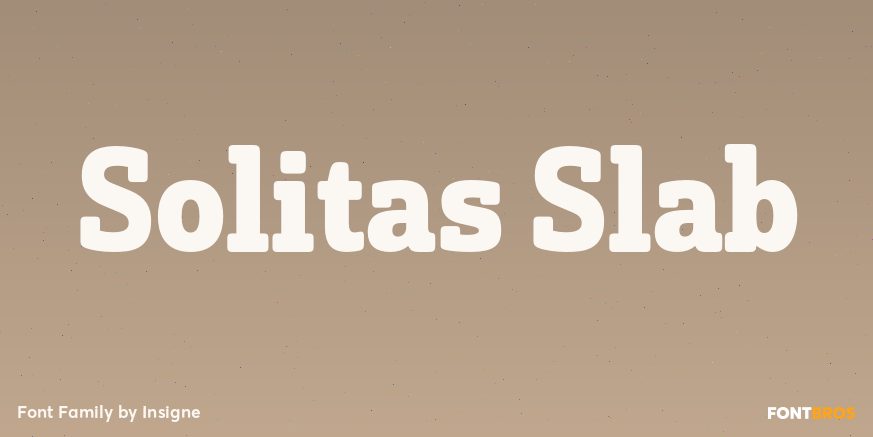
Solitas Slab
About Solitas Slab
Slab serif, meet the curves of Solitas. The new slab sister of insigne\’s successful Solitas family will turn your head with its soft, but distinct look. Solitas Slab defies the typical feel of the robust slab category with her more compact structure and…